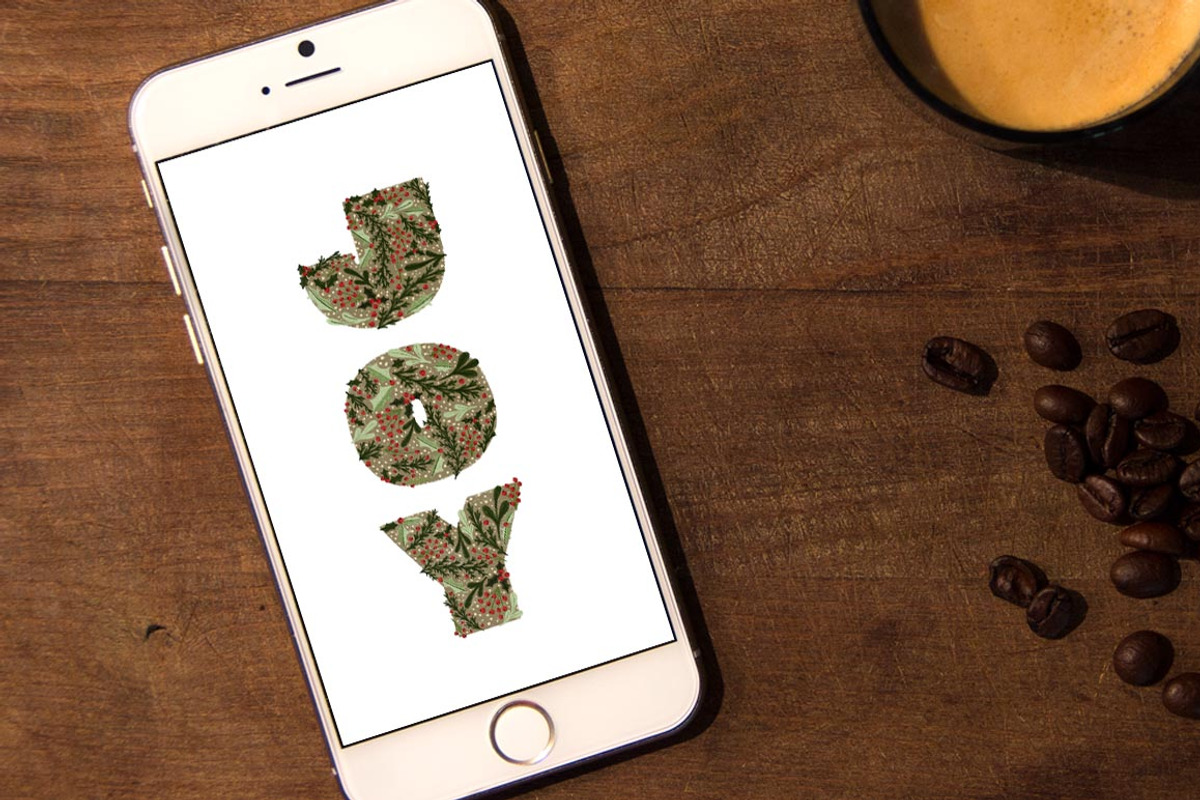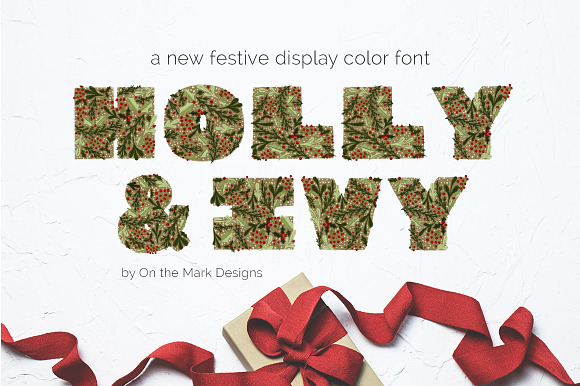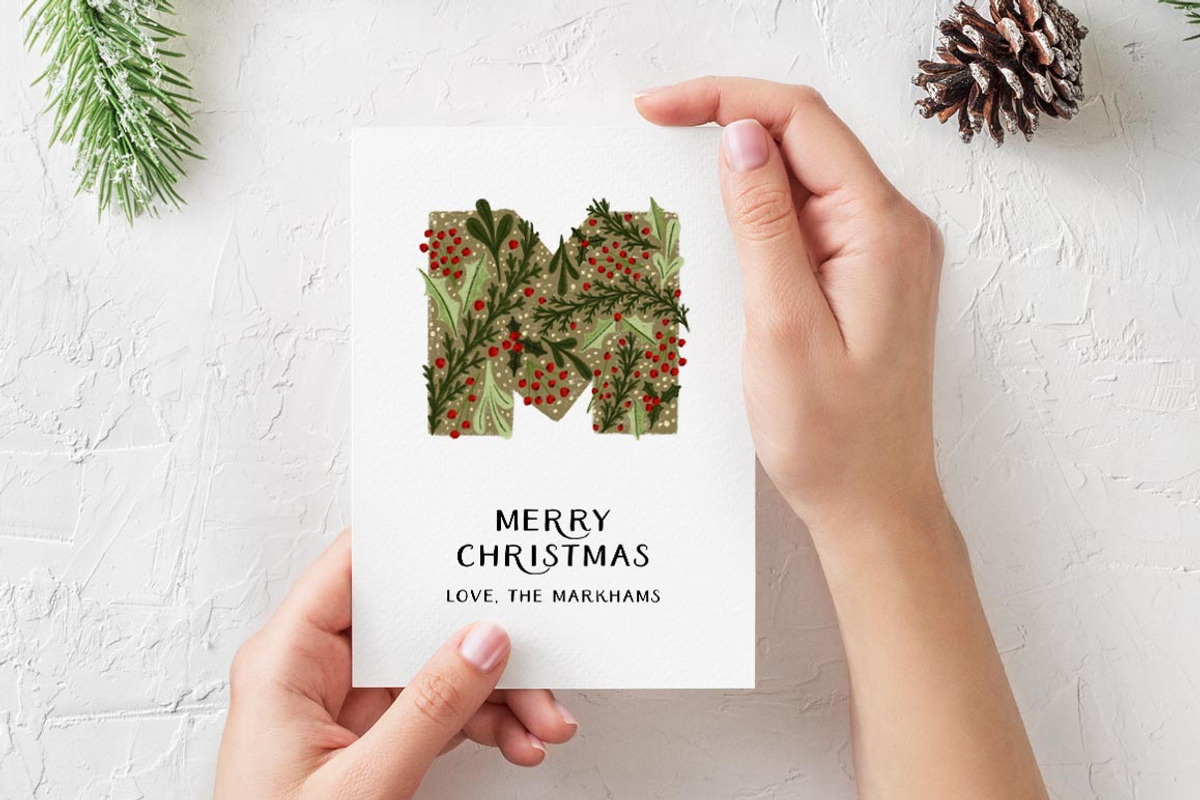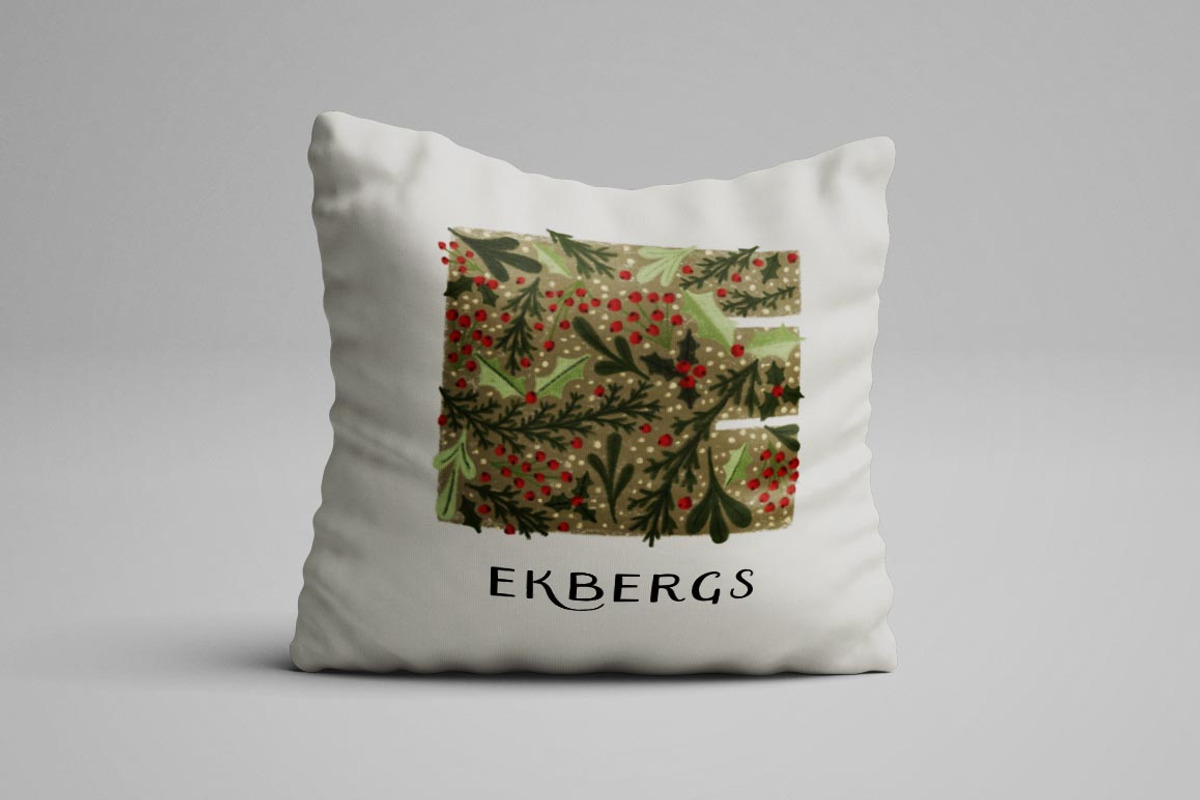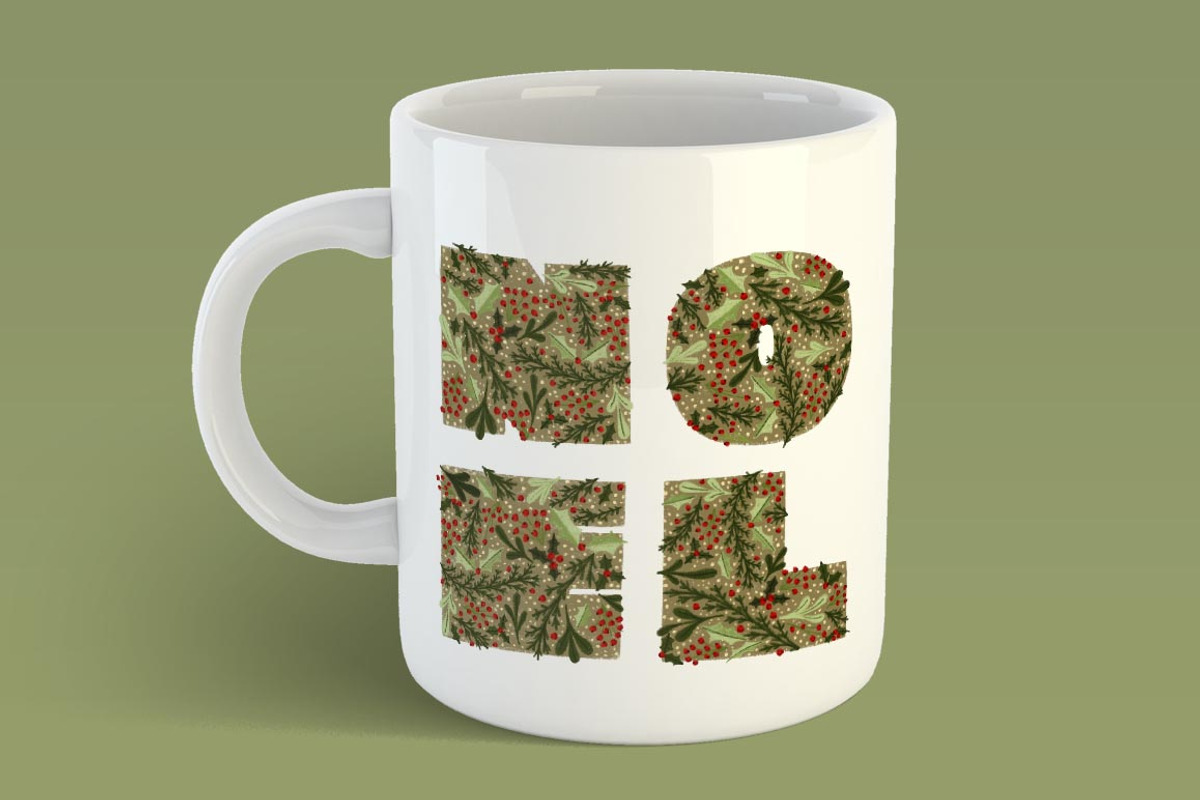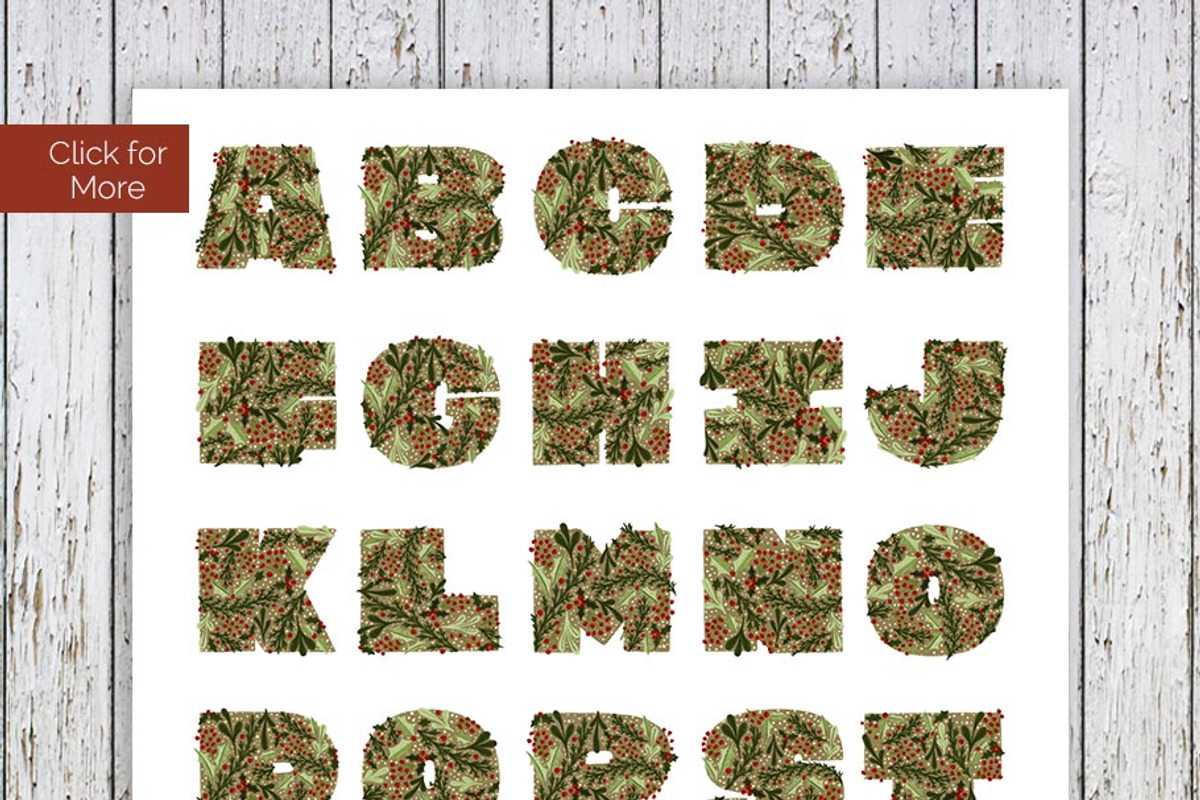
Holly & Ivy Color Display Font
Holly and ivy have been a huge source of inspiration for me this Christmas season! When I created these letters to go on a Christmas card, I knew I needed to make them into a font for all of you festive monograming needs! The delicate features of each letter create a wonderful texture and depth that will impresses your loved ones when they get your Christmas card this holiday season!
Full set of upper case letters